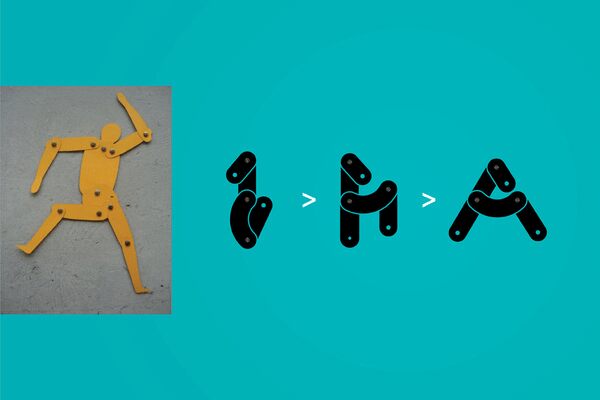
Articulada by Thales L. Aquino is a free decorative display font built from stout, rounded segments that meet at conspicuous joint-like overlaps. Tiny circular marks resemble rivets or screw heads, giving the letters the look of an articulated construction toy rather than conventional solid forms.
A children's museum could use this lettering for a lively mechanical identity that connects exhibits with its gift shop. It also suits puzzle packaging and playful event posters. The hinged shapes can become part of a toy brand's graphic system, echoing movable parts in illustrations and assembly diagrams across labels and merchandise for young families.
Each character in Articulada is formed from three pieces. Their heights vary between letters, and their endings are designed to emphasize motor skills.